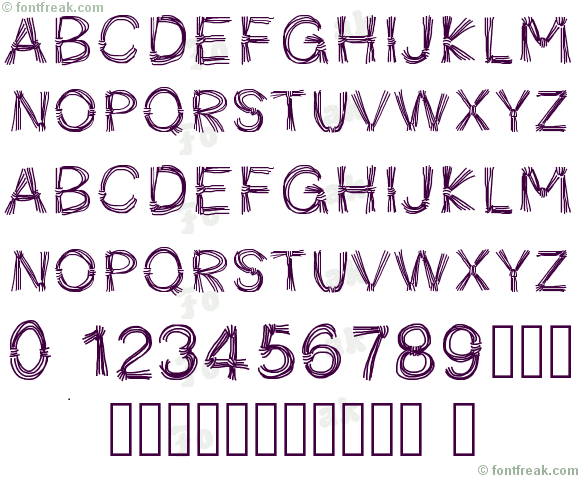
PWFicelles
PWFicelles by Peax Webdesign is a unique display font that captivates with its artistic flair. This font falls into the decorative category, characterized by its playful and imaginative design, making it an excellent choice for projects that require a touch of creativity. The visual characteristics of PWFicelles are defined by its irregular stroke weight and whimsical appearance, giving the letters a hand-drawn feel. The contrast between thick and thin strokes adds depth, while the spacing between characters enhances readability, making it both engaging and easy to use.
PWFicelles is versatile, ideal for a variety of applications. It shines in creative contexts such as wedding invitations, where its charming design can elevate the overall aesthetic. This font also works exceptionally well for movie posters, lending a unique visual identity that captures attention. Additionally, restaurant menus can benefit from its decorative style, providing an inviting atmosphere for diners. Content creators will find it perfect for social media graphics, where eye-catching visuals are crucial for engagement. Graphic designers and small business owners will appreciate how PWFicelles can add personality to their branding efforts.
What sets PWFicelles apart is its ability to blend creativity with functionality. It stands out among other decorative fonts due to its distinctive character and versatility, making it suitable for both formal and informal occasions. The PWFicelles font free download allows users to easily incorporate this exceptional typeface into their projects, enhancing their visual storytelling. With its unique design and applicability across various platforms, PWFicelles is a fantastic choice for anyone looking to make a lasting impression.